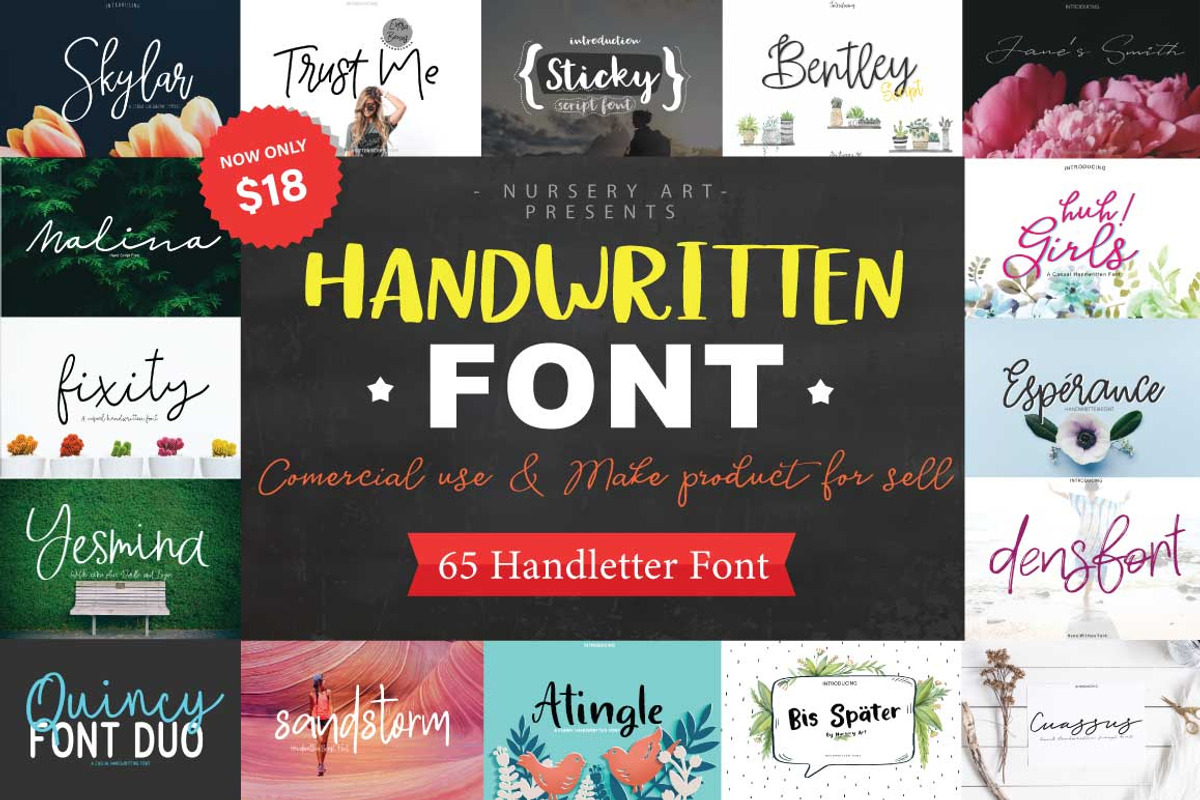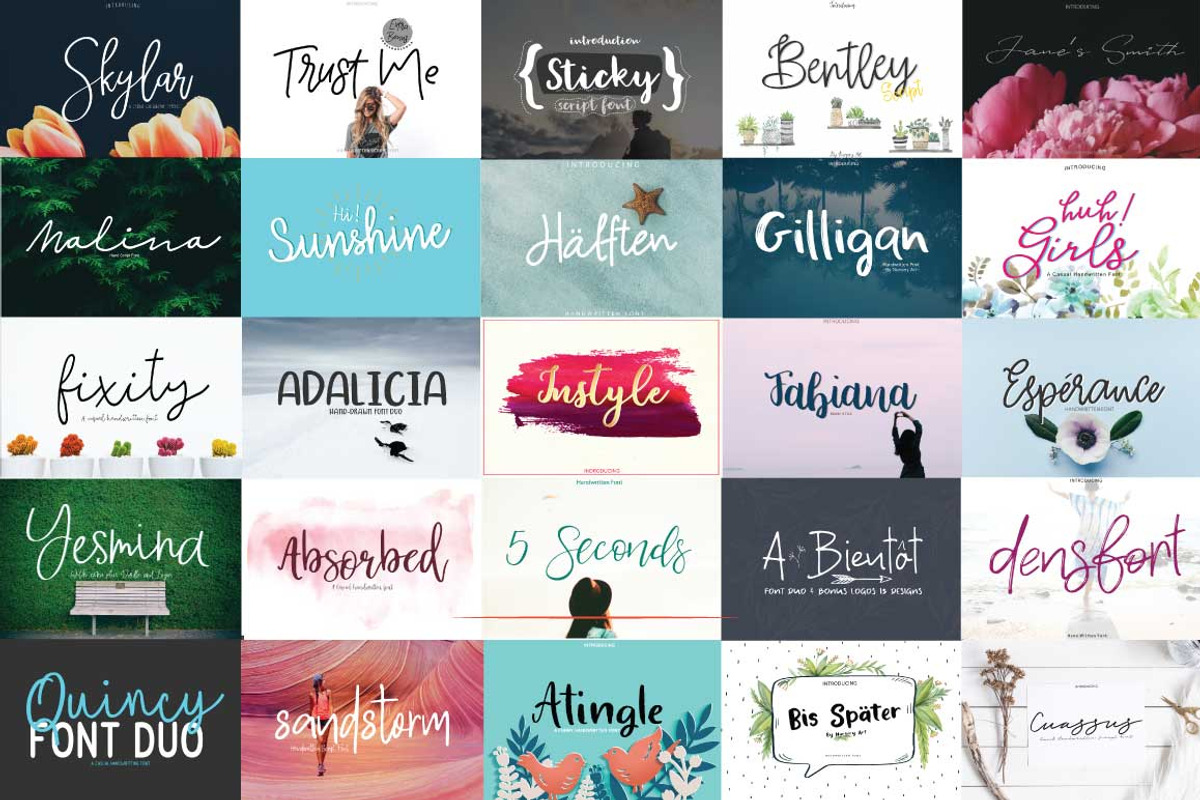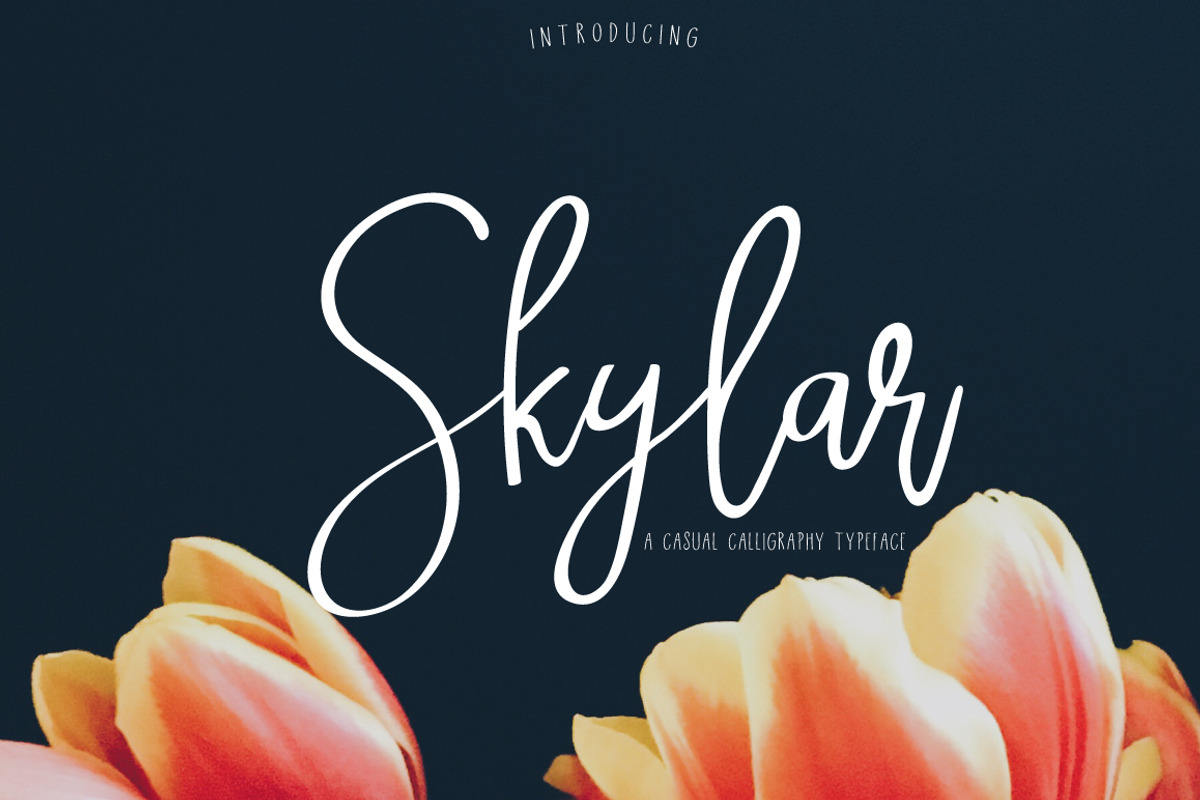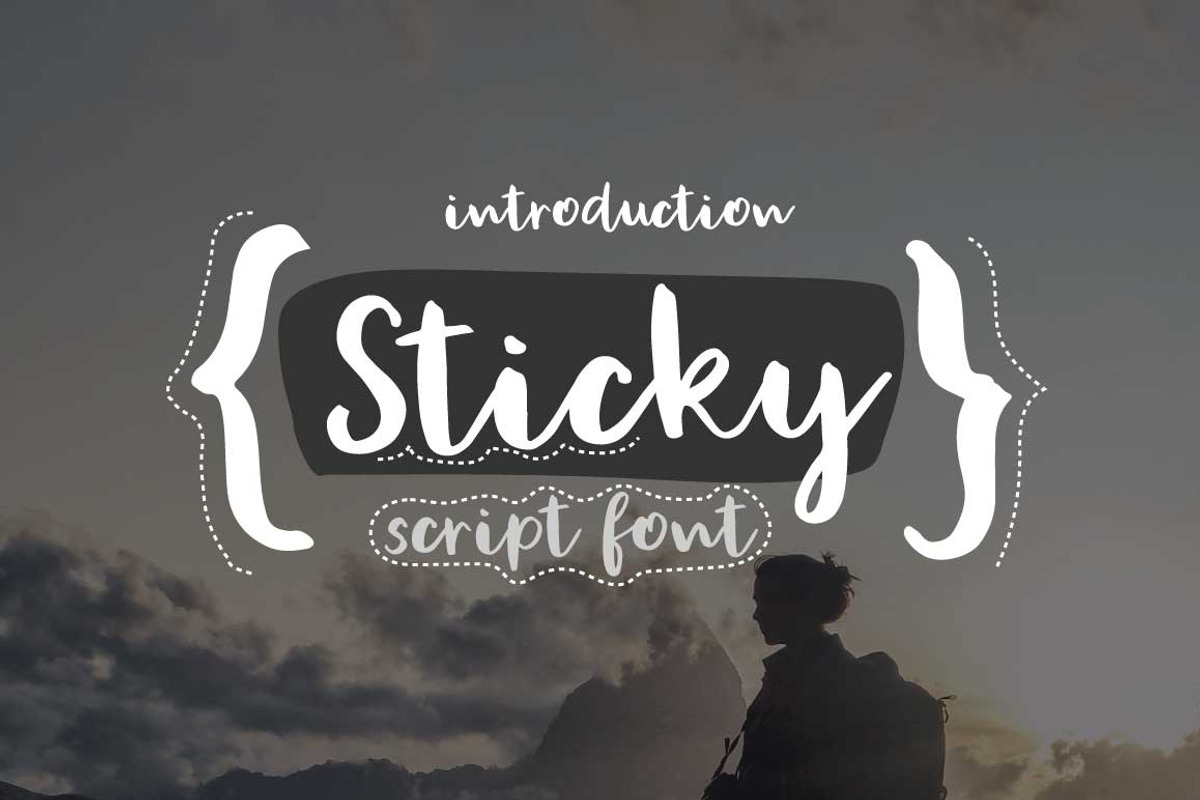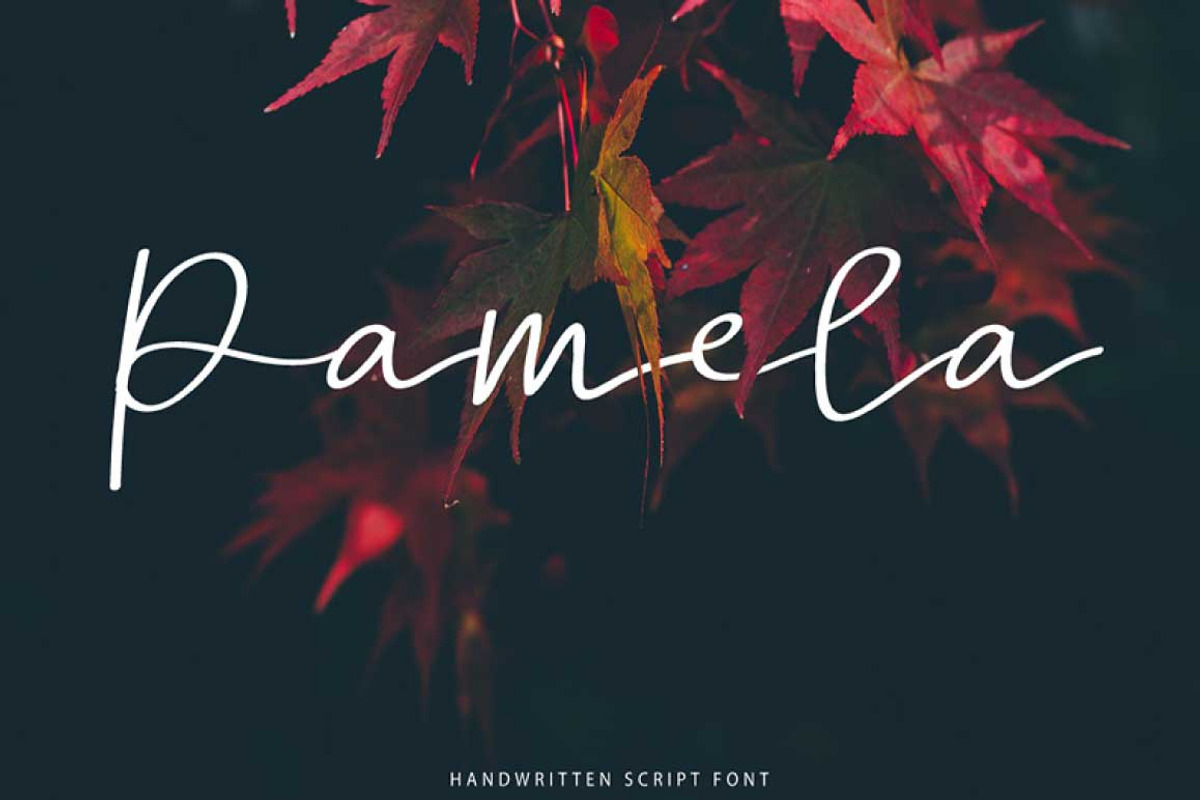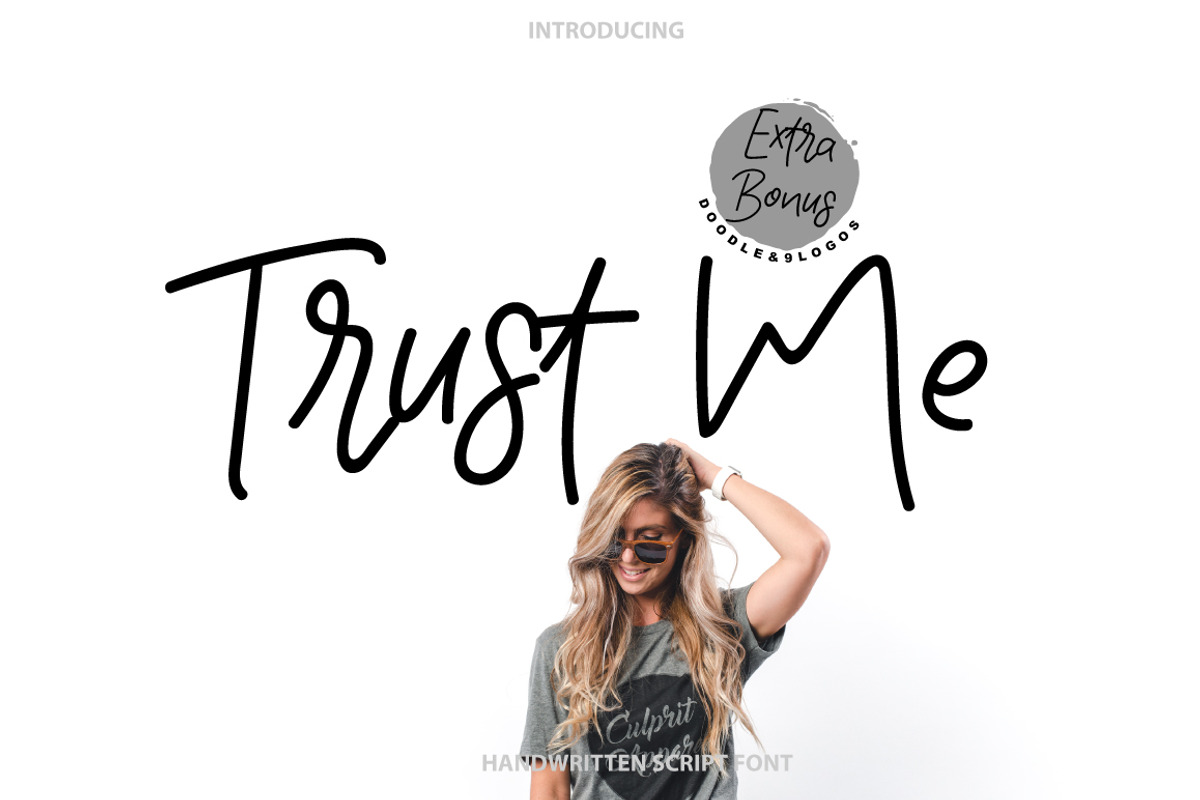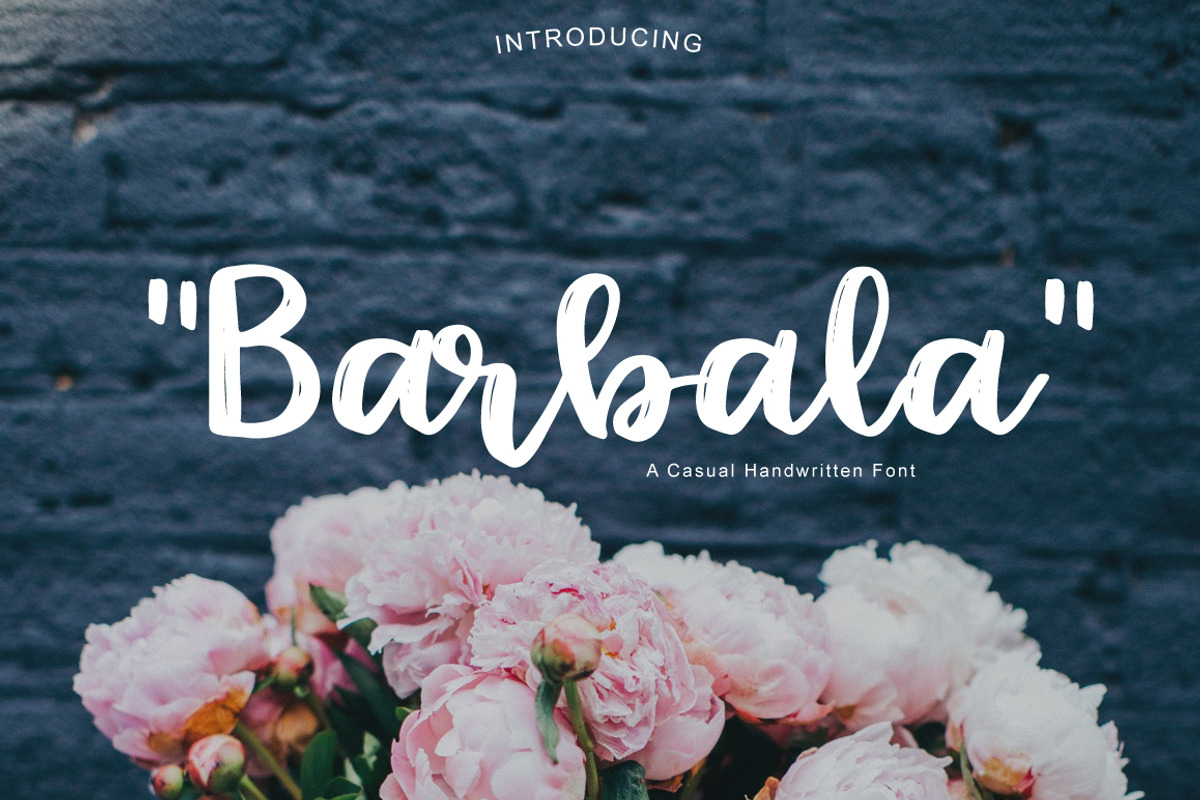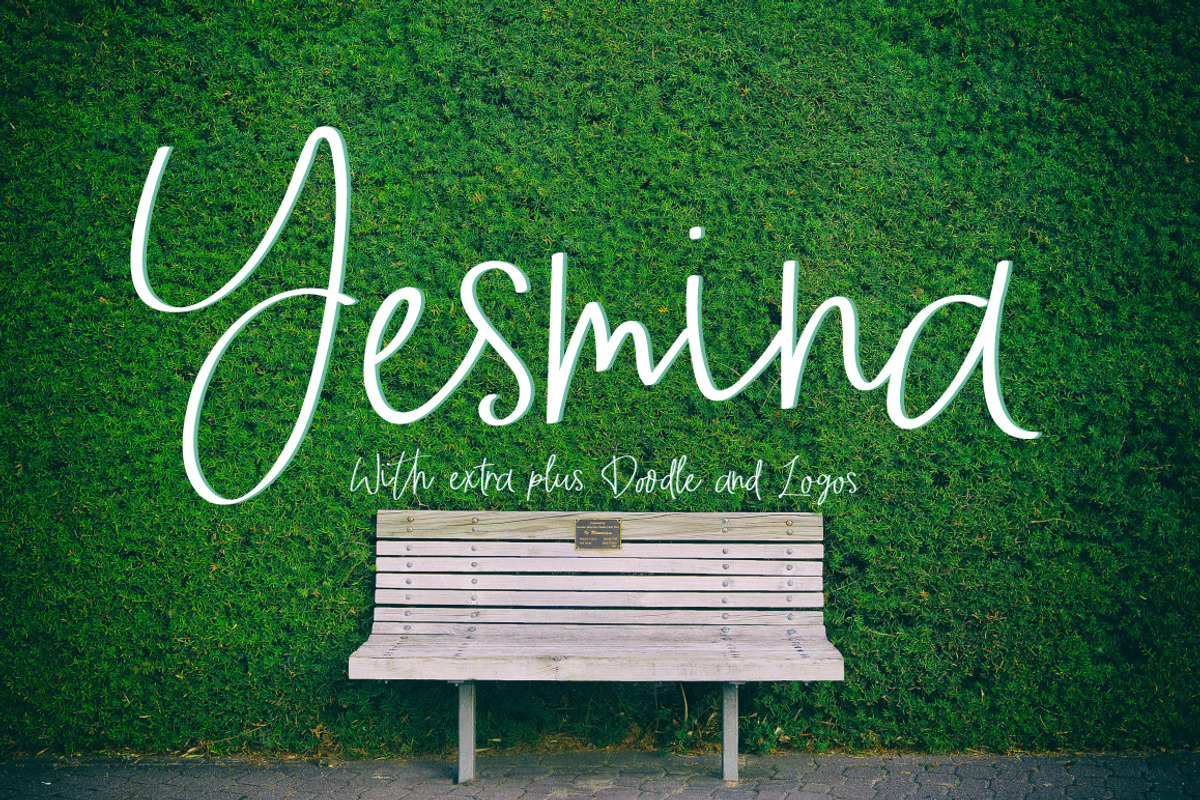
Handwritten Font Bundle
What's included in this DEAL:
Yesmina | Font & Logos + Doodle
Gilligan | Handwritten Font
Lepota | Handwritten font
Just Tuesday | Casual Handwritten
Rwanda | Handwritten Script Font
ADALICIA | HAND DRAWN FONT DUO
Lesliecy | Handwritten Font
The Eolian | Fancy Script
Bis Spater | Handwritten Script
Halften | Handwritten Font
Unkempt | Dry Brush Font
Esperance | Handwritten Font
Super black | Bursh Font
Janes Smith | Handwritten font
Trust me | Handwritten Font & 9Logos
stinker | Bonus 12 Logos
Jherry Jill | Font Duo + 6 Logos
Atingle | Handwritten Font
Sentimental | Script Font
Barbala | Handwritten Font
Silent night | Font Duo
densfort | Handwritten Font
Absorbed | Script Font
Gumdrop | Handwritten font
fixity | handwritten font
Cuassus | Script font
A Bientot | Font Duo with Bonus Logo
Unbossy | Handdwritten Script Font
Mr. Proxy | Handwritten Font
Maxwell | Handwritten Font
Deisy | Handwrtten Font
sandstrom | Handwritten script Font
Koko Kruse | Hand Written Font
Miss Zippy | Chic Typeface
Bravo | Fancy Typeface
Paxton | A chic Hand written Font
Ooh Lala | Hand Lettering font
Specialist Handwritten Font
Hi Sunshine | Script font
Bellahana Script Font
Good Morning | Handwritten Font
Lazy Monday | Script Font
Liam Smith Handwritten font
With love Handwritten font
Why Handwritten Font Bundle is worth a look
Handwritten Font Bundle by Artstudio fits naturally into Branding, posters, packaging, typography.